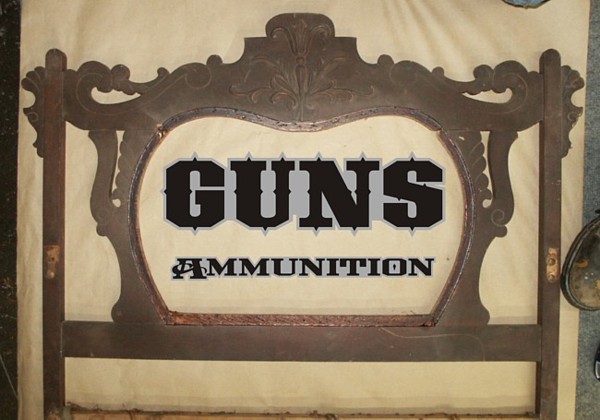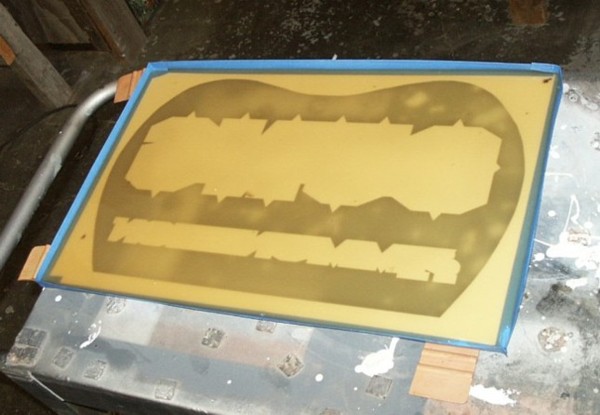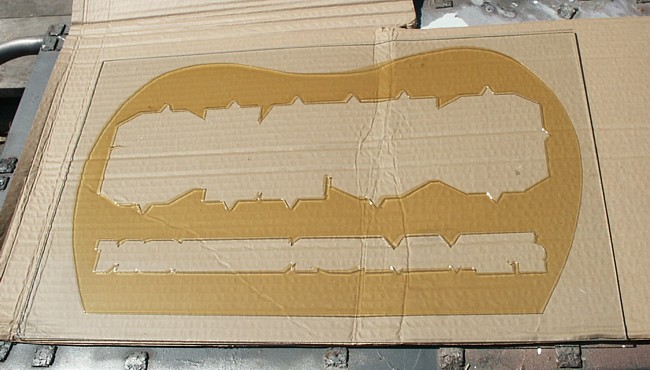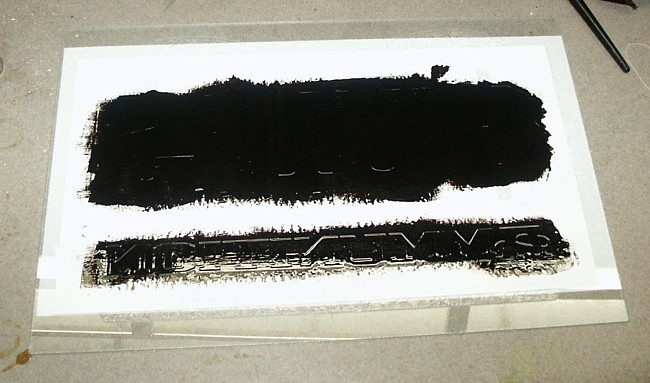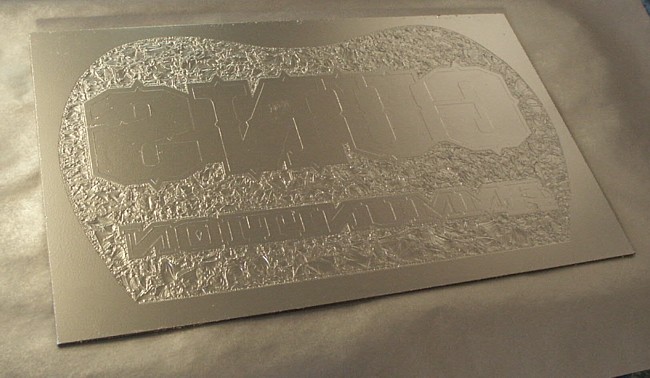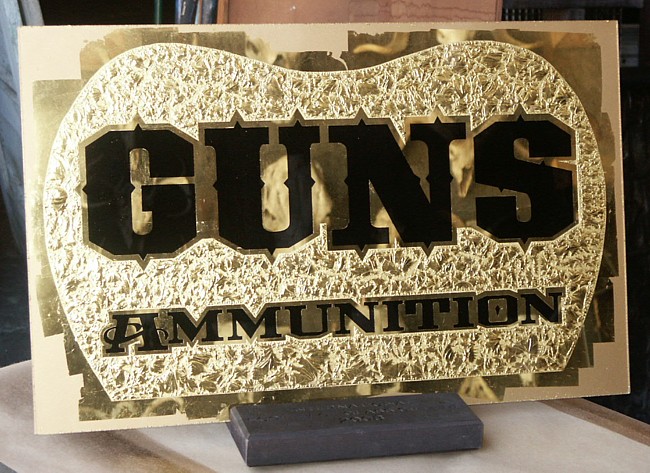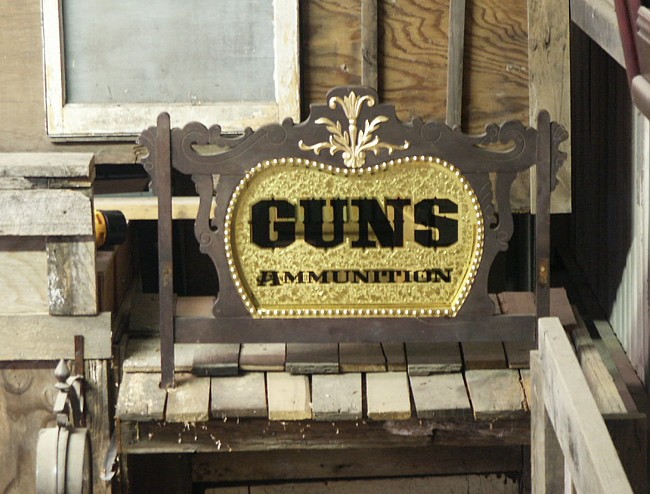
Tell me, was it neccessary to do all that brilliant cutting?
there are many different techniques...and the only sign that can top this one,
is your next one.
Maybe Mr. Black can teach you a few more things...like keeping it simple...
Design time and cut sandblast mask, 20 minutes.
Cut glass, mask, blast, flow the glue, 30 minutes.
Cut the glue and remove the mask, 15 minutes.
Good is good...punties or not.
Re: Original Dead Men...
Ahh, Larry, would you be trying to get the Englishman to regress in his skill level. Nay, I think not. He is so skilled with them punties that it's scary...not to mention all the other skills that he has perfected over the years. Me, I got a Dremel tool that we could do some punties with. Maybe not polished like those of the Englishman, but it would be a start.
Thunderstorms here in Weber Country. Say, speaking of that group, I might take come pictures of the finished project they did for the Fire/Police department building. It looks real nice...like you'd expect from that bunch, course they needed help from Bill to get it right.
All this aside, I do like the beginnings of your Guns/Ammo sign. You are a skilled craftsman. I seen your work when you and that guy with the bonnet hid out in the back room at Noel's place. That room weren't much bigger than a two hole privy.
You stay safe. Keep your nose into the wind. Funny things happen in Machine.
A guy by the name a, Lee Hazelwood crafted this wonderful sign to add to the decor.
Angel Eyes gave me his treasured , lifesize, Clint Eastwood cardboard cutout! Imagine that, a grown man givin' that up!
Mr. Dickinson left me a few shots of Bushmills. I think it was in trade for the 1500 Dixie cups he used over the weekend!
And Sally cut me a nice thick steak...and i enjoyed it!
-Aho my friends!
Oh, and Joe Hardy left me with a nice bag of bacon.